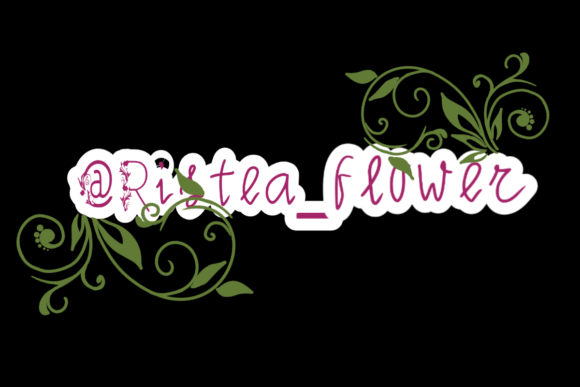
Embark on an enchanting journey with Ristea Flower, the decorative font that will captivate your senses and elevate your designs to ethereal heights. Inspired by the delicate brushstrokes of a maestro, Ristea Flower dances gracefully across your screen, beckoning you to create masterpieces that sing with character and charm.
With its alluring curves and whimsical flourishes, Ristea Flower transforms ordinary words into works of art. Its playful personality shines through in every letterform, adding a touch of whimsy and wonder to your creations. Perfect for those seeking to add a dash of enchantment to their designs, Ristea Flower is the font that will make your words bloom with beauty.
Crafted with meticulous care by the renowned Nia Ristiana, Ristea Flower is a testament to her passion for creating fonts that inspire and uplift. Each letter has been lovingly designed to evoke a sense of joy and creativity, ensuring that your designs will radiate with an unmatched charm.
Whether you're crafting elegant wedding invitations, heartfelt thank you cards, or simply adding a touch of magic to your everyday designs, Ristea Flower will be your constant companion. Its versatility knows no bounds, making it the perfect choice for a wide range of projects that demand a touch of whimsical elegance.
Join the countless designers who have fallen in love with the enchanting beauty of Ristea Flower. Embrace the power of this remarkable font and let your creativity flourish like never before. Discover the joy of creating designs that will leave a lasting impression, all thanks to the captivating allure of Ristea Flower.